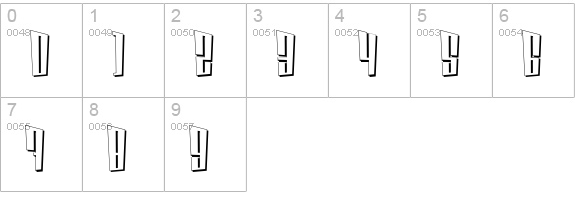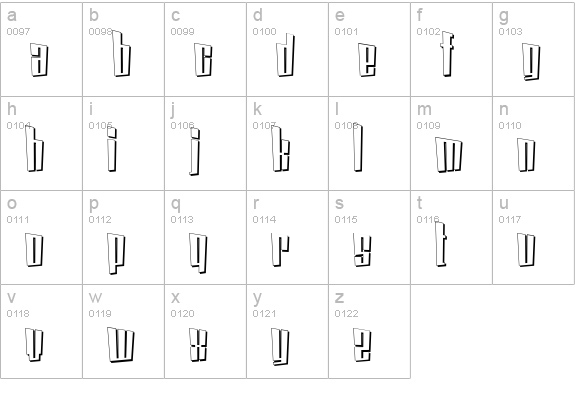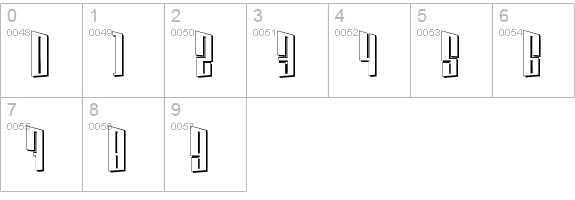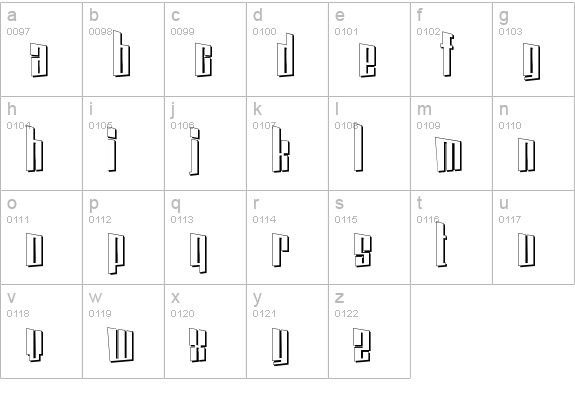
Coin Locker Datura Shadow Font Details
Coin Locker Datura Shadow font is a unique and stylish typeface that brings a modern edge to any design project. With its sharp angles and shadow effects, this font is perfect for creating eye-catching headlines, posters, and logos. The free-flowing lines and intricate details of Coin Locker Datura Shadow font give it a bold and dynamic look that is sure to make your text stand out. Best of all, Coin Locker Datura Shadow font is freely available to download at FontsMarket.com. This means you can easily add this striking font to your collection without breaking the bank. Whether you're a graphic designer, web developer, or just someone looking to spice up your projects, Coin Locker Datura Shadow font is a fantastic choice that won't cost you a penny. Download it today and start creating stunning designs with this versatile and captivating typeface.